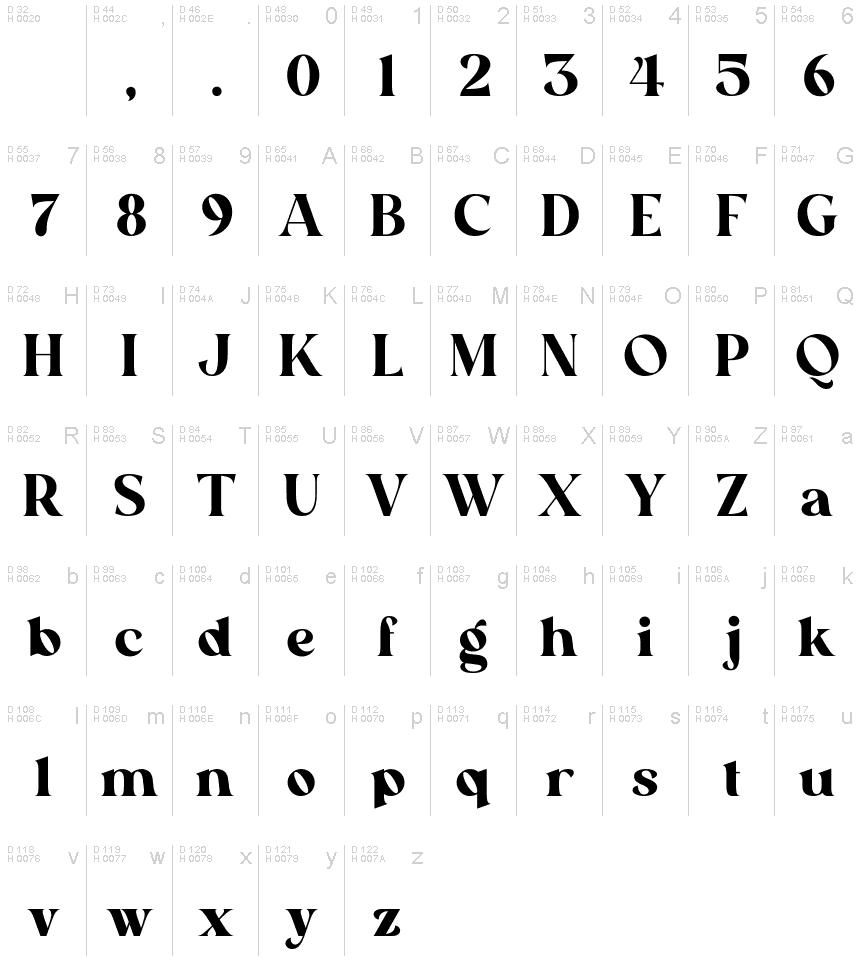
Sinerva
Sinerva, the latest creation by Aluyeah Studio, is a fancy serif typeface that exudes elegance and sophistication. Its extra-bold weight and intricate letterforms make it perfect for projects that require a touch of luxury and refinement. Use Sinerva to create stunning logos, invitations, wedding stationery, or any design that needs a touch of extravagance. Its intricate details are perfect for high-end fashion or beauty branding or packaging. Sinerva's boldness makes it an excellent choice for headlines in editorial design and magazines. Make your designs stand out with this exquisite typeface and elevate them to the next level of sophistication.
Sinerva is a quilly display typeface. Coming with 130+ stunning and super easy to use alternates.
Very suitable for magazine, headline, website, ads, product package and all type of design project you have.